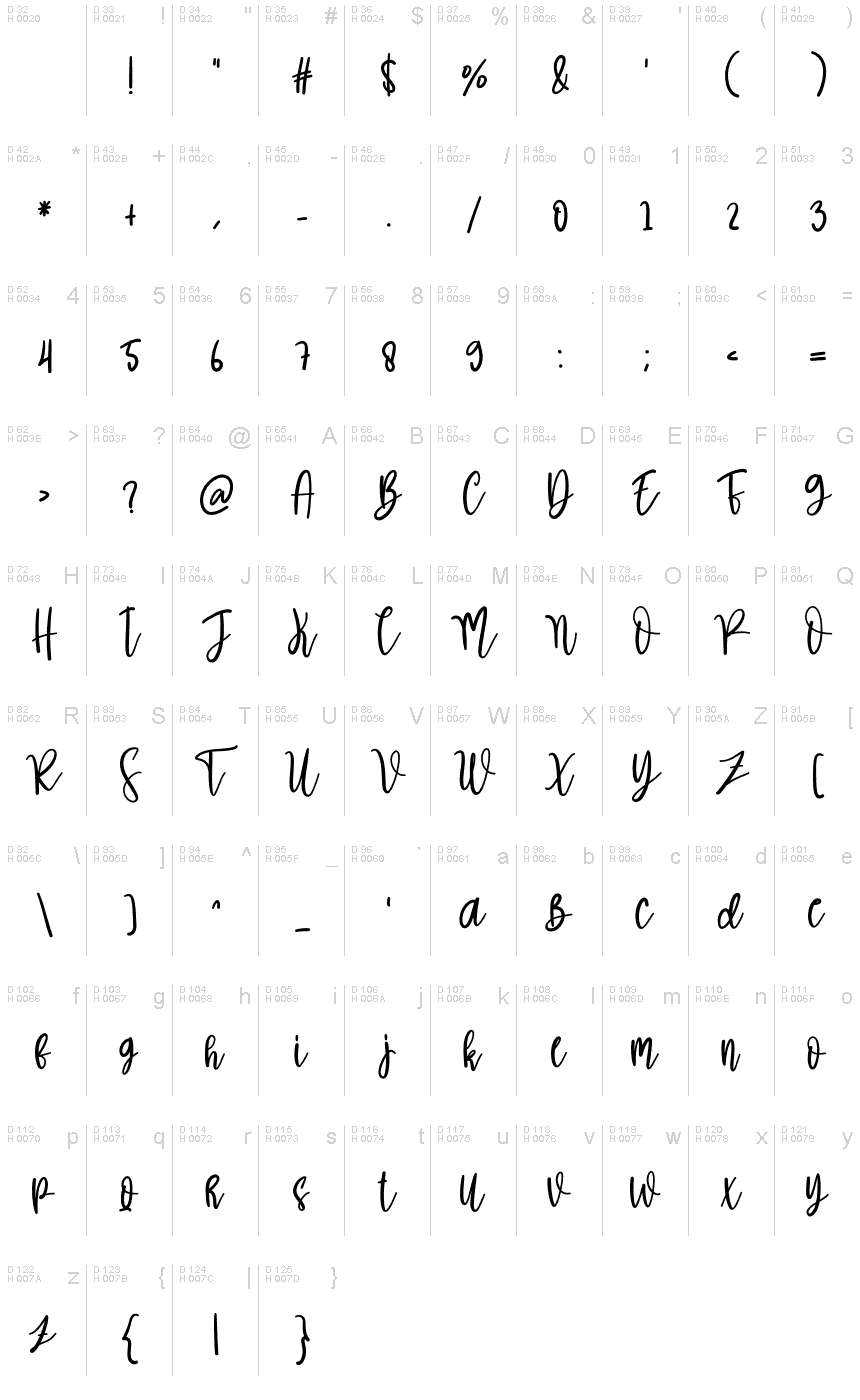
Baby Cake
Looking for a playful handwritten font that delivers a touch of whimsy? Look no further than Baby Cake, designed by scratchones. With its semi-light weight, this font offers a gentle, friendly feel that's perfect for everything from greeting cards and invitations to children's book covers and logos for boutique brands. Whether you're crafting an adorable baby shower announcement or designing a fun new website header, Baby Cake has the handcrafted charm to make your message stand out. So why not add a little sweetness to your next project with the delightful Baby Cake font?
the latest style letters are perfect for wall displays, wedding invitations, social media post logos, advertisements, product packaging, product designs, labels, photography, watermarks, invitations, stationery, and any project that requires taste handwriting.